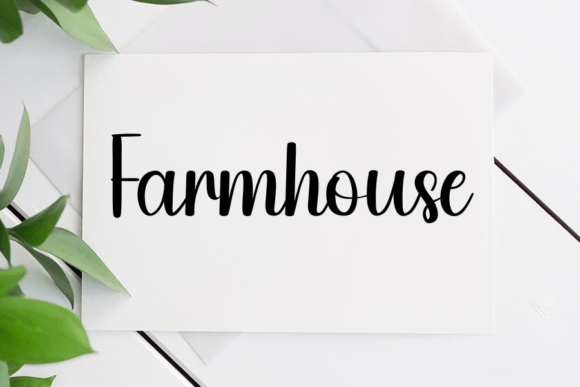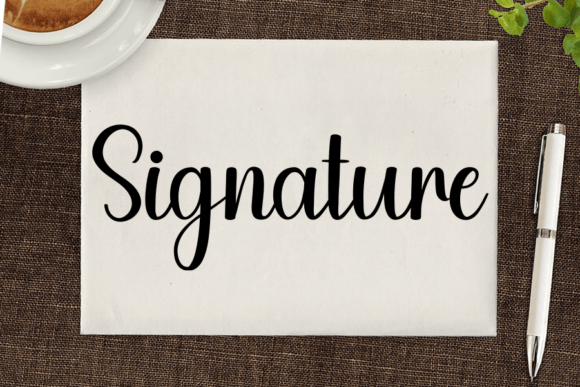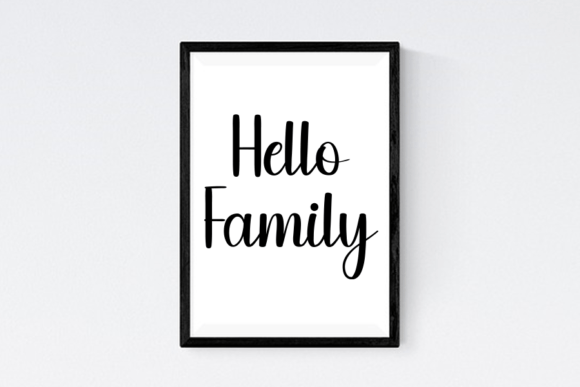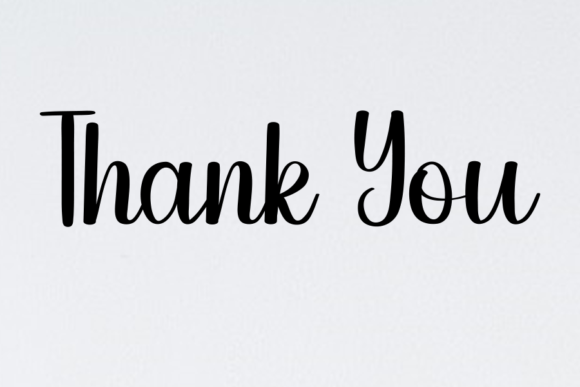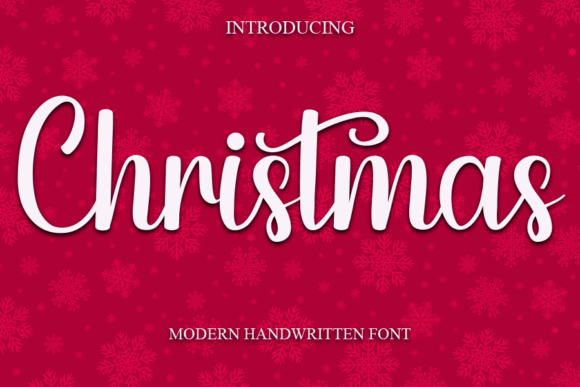
Introducing Christmas Font: The Ultimate Festive Typeface for Designers and Crafters
Are you looking for a font that captures the essence of the holiday season? Look no further than Christmas Font, a fun and friendly handwritten typeface that’s perfect for a variety of design projects. Whether you’re a designer, crafter, or simply someone who loves the festive season, this font is sure to become your go-to choice for all your holiday design needs.
What Makes Christmas Font So Special?
Christmas Font is a unique and charming handwritten font that’s designed to bring a touch of festive fun to your designs. Its playful and friendly style makes it perfect for a wide range of projects, from crafts and digital designs to presentations and greeting cards. The font’s versatility and ease of use make it an excellent choice for designers and crafters of all skill levels.
Uses for Christmas Font
So, what can you use Christmas Font for? The possibilities are endless! Here are a few ideas to get you started:
- Crafts: Use Christmas Font to add a personal touch to your holiday crafts, such as scrapbooking, card making, and gift tagging.
- Digital Design: Add a festive flair to your digital designs, including social media graphics, blog posts, and website headers.
- Presentations: Make your holiday presentations more engaging and fun with Christmas Font.
- Greeting Cards: Create personalized and festive greeting cards for friends and family.
Why You’ll Love Christmas Font
So, what makes Christmas Font so lovable? Here are a few reasons why you’ll fall in love with this festive font:
- Easy to Read: Christmas Font is clear and easy to read, making it perfect for body text and headings.
- Highly Versatile: Use Christmas Font for a wide range of projects, from formal to informal designs.
- Festive and Fun: Christmas Font is designed to bring a touch of festive fun to your designs, making it perfect for holiday projects.
- Handwritten Style: The font’s handwritten style gives it a personal and unique touch that’s perfect for adding a human element to your designs.
Tips for Using Christmas Font
Here are a few tips for getting the most out of Christmas Font:
- Experiment with Sizes: Try using Christmas Font in different sizes to create visual interest and hierarchy in your designs.
- Pair with Other Fonts: Pair Christmas Font with other fonts to create a unique and interesting contrast.
- Use for Headings and Titles: Use Christmas Font for headings and titles to add a festive touch to your designs.
- Add Decorations: Add decorations, such as holly or snowflakes, to your designs to make them more festive and fun.
Christmas Font is a fun and friendly handwritten font that’s perfect for designers and crafters who want to add a touch of festive fun to their designs. Its versatility, ease of use, and festive style make it an excellent choice for a wide range of projects, from crafts and digital designs to presentations and greeting cards. So, why not give Christmas Font a try and see how it can bring some holiday cheer to your designs?